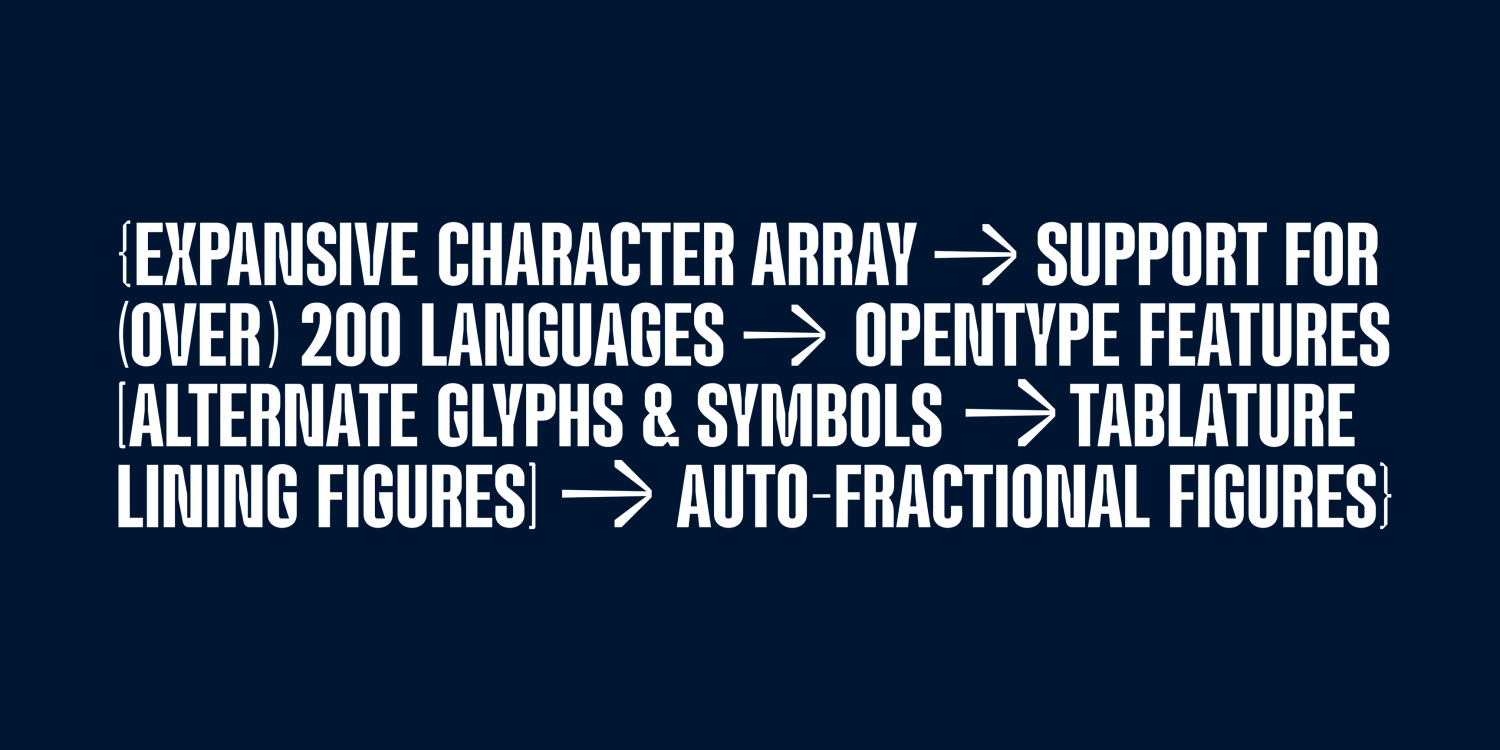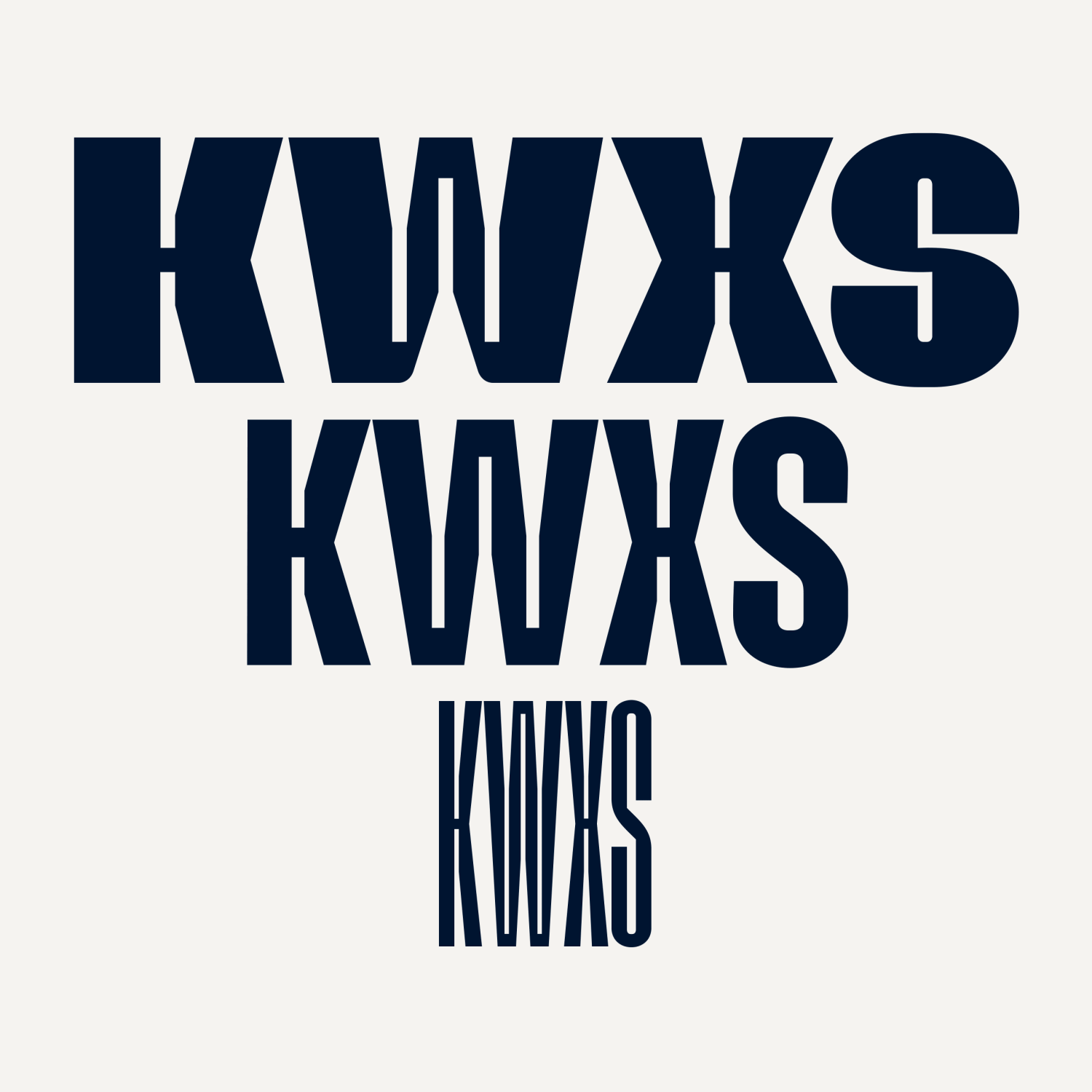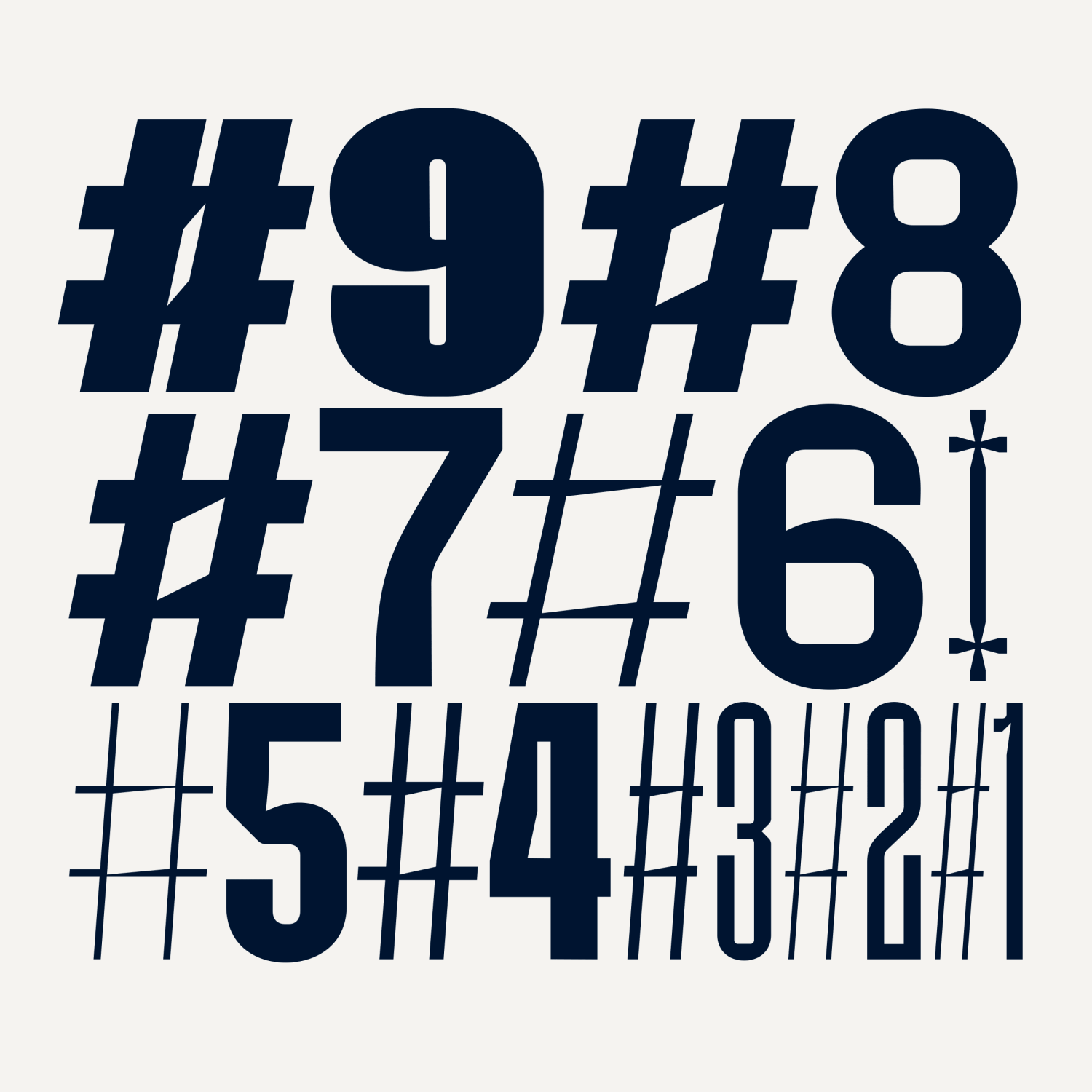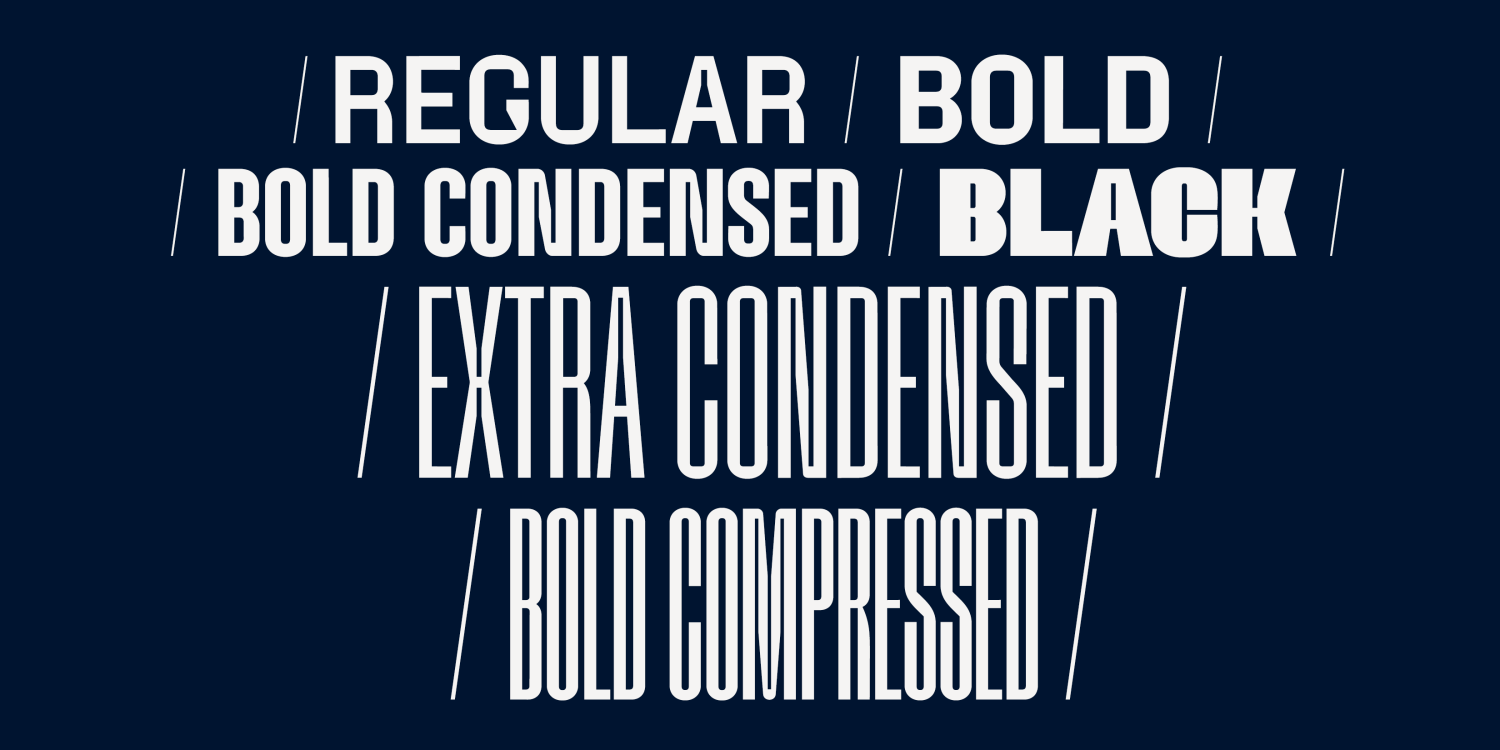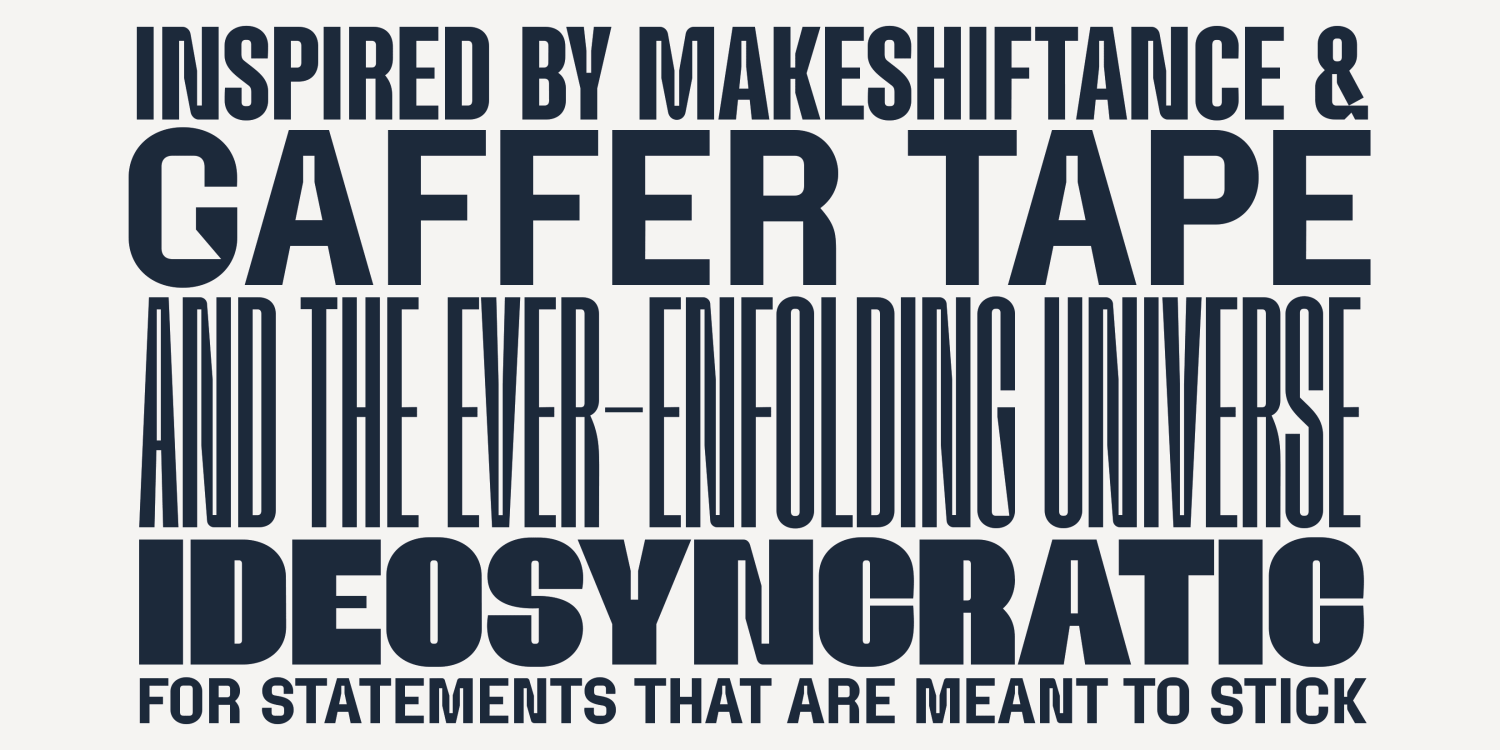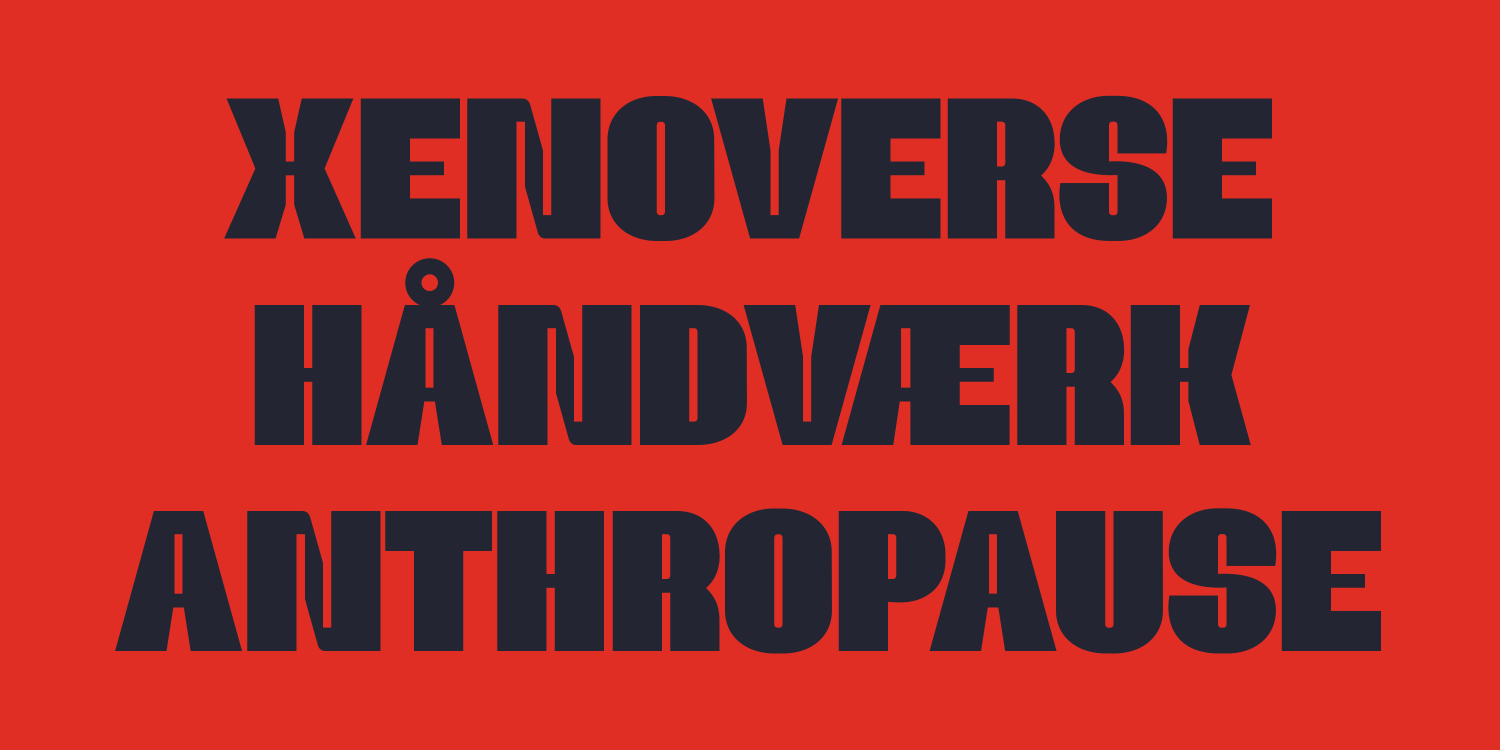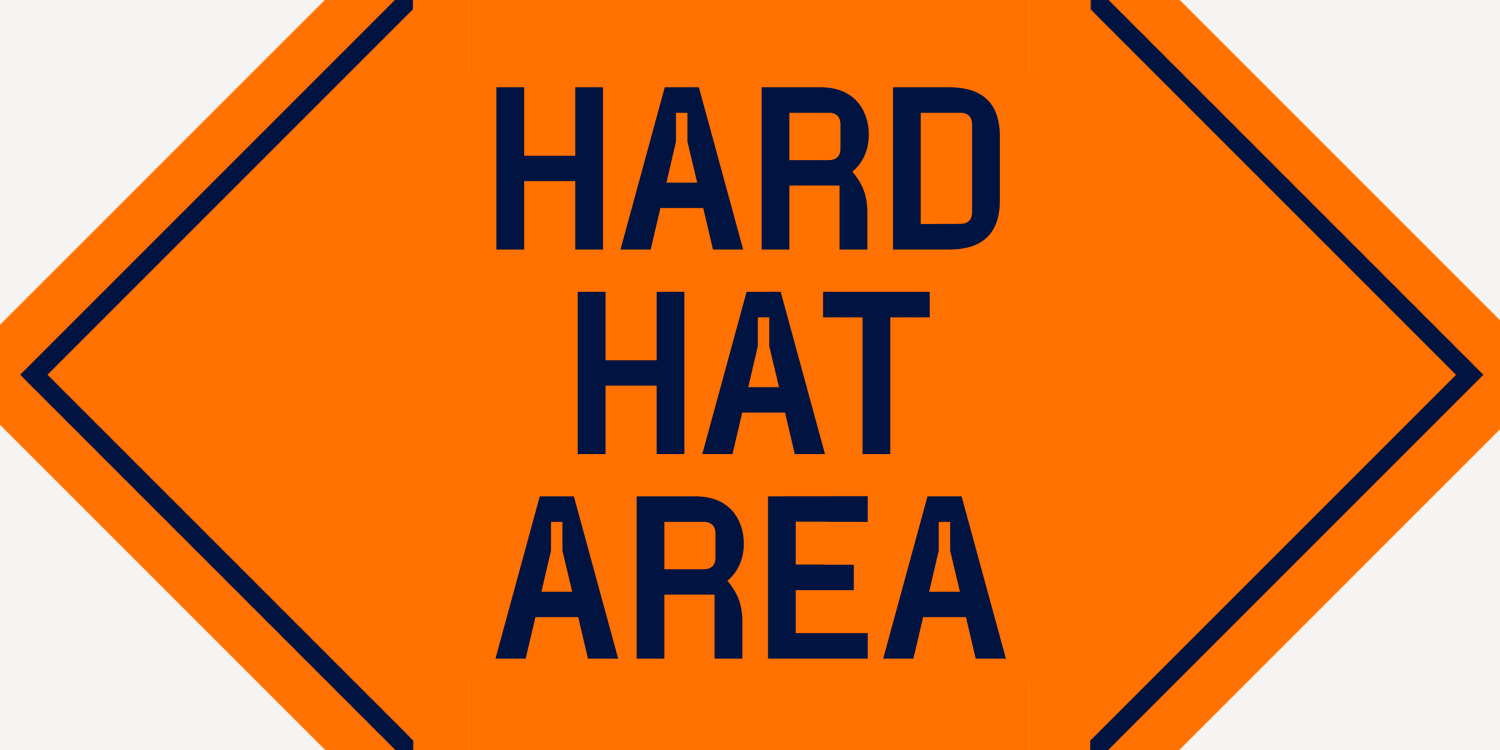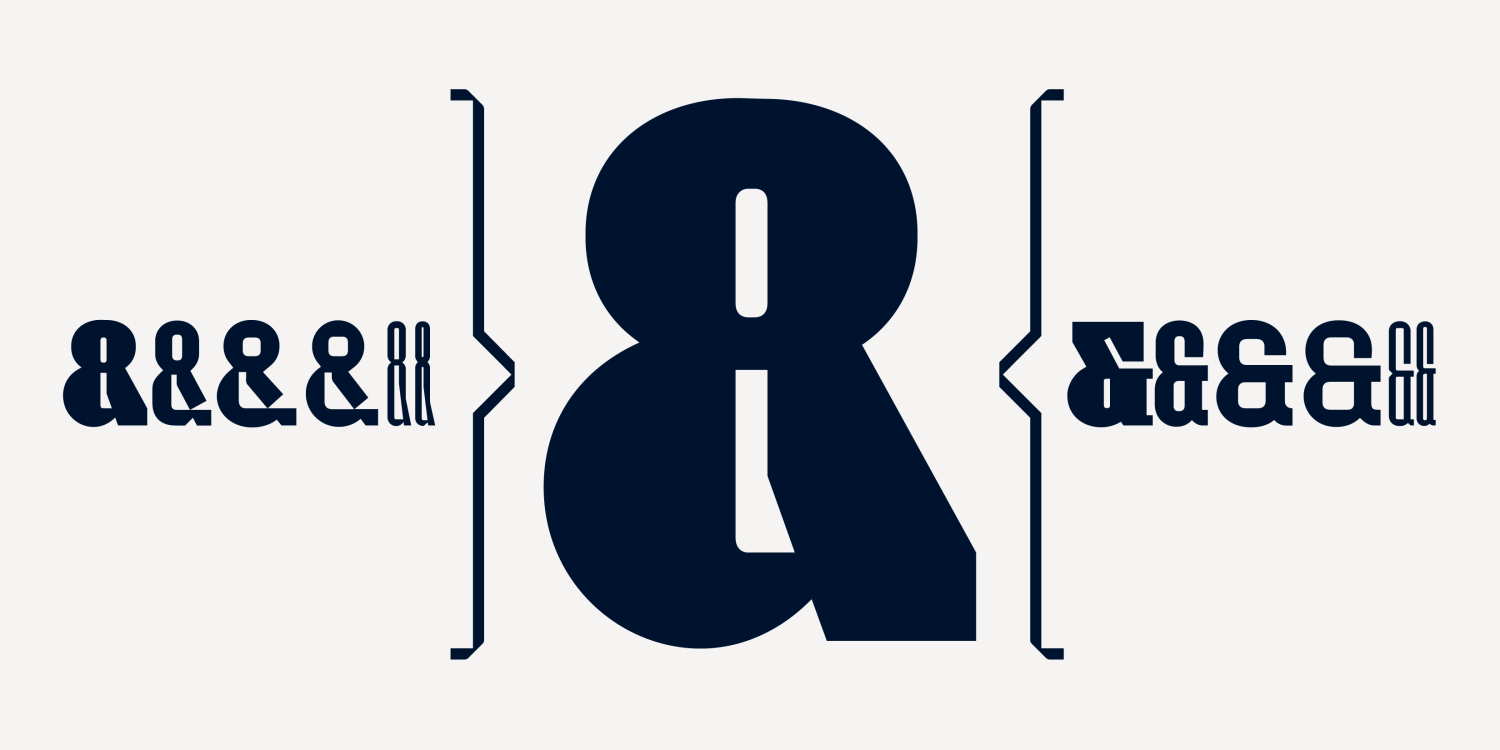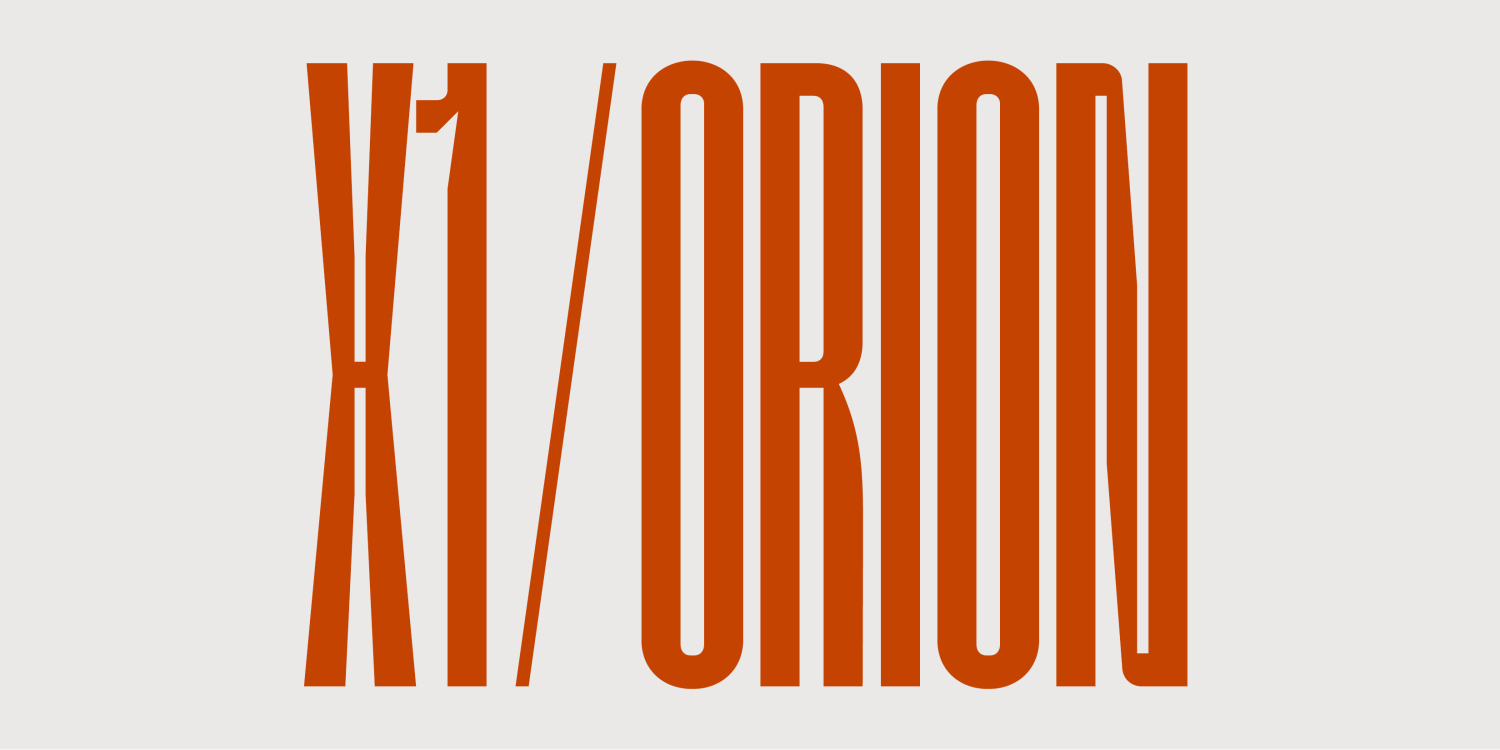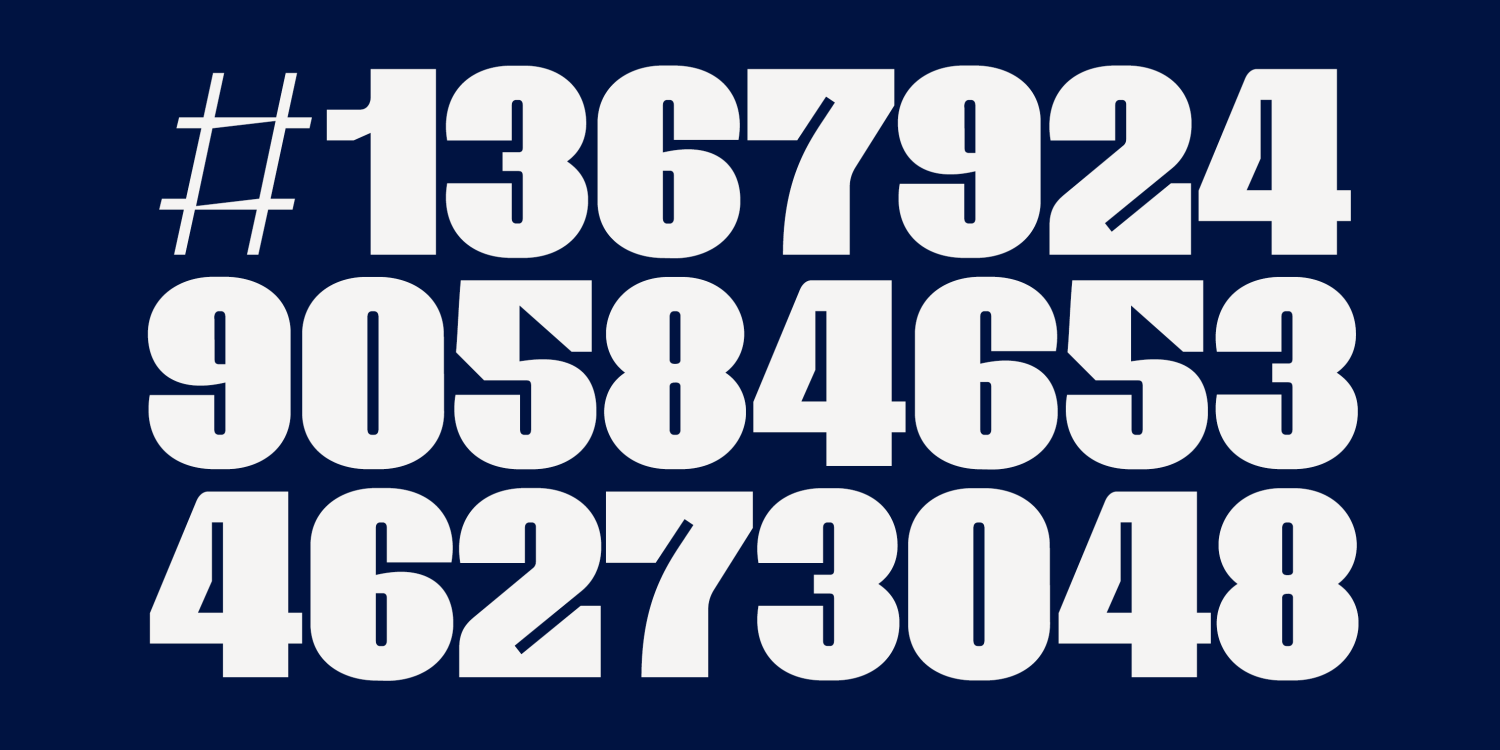
Gaffeur Pro Rounded
Font Family by Typonym
Gaffeur is a modern and refined take on a traditional typographic genre, one common to improvised signs, liveries and sports jerseys. Curves are traded for angles, glyph widths are standardized--particularly in the numerals--and constructed around the idea of folding tape into letterforms. But the concept is transfigured here, merging with the nuances of elegant and inventive typography to create something unexpectedly novel. It features an expanded range of glyphs, symbols and punctuation with broad language support for hundreds of latin-based alphabets. The same care has been taken in setting metrics and kerning that would be expected from any professional typeface. The result is a recognizably distinctive, surprisingly versatile post-modern display typeface situated between Swiss minimalism and avant garde hijinks.